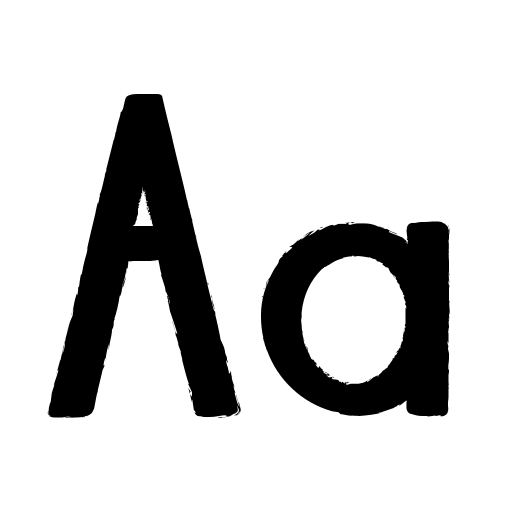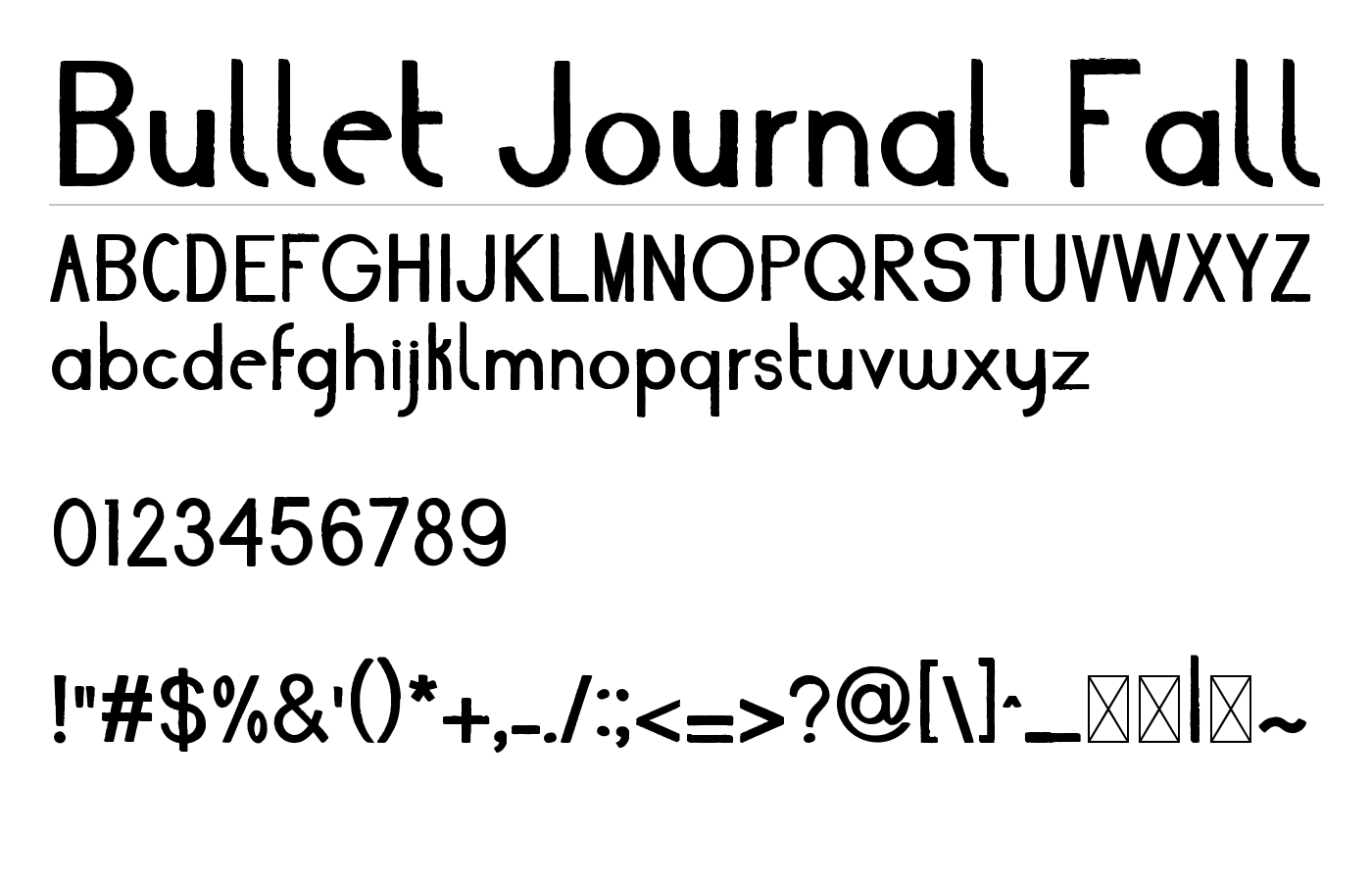
Bullet Journal Font is a playful and casual sans serif with a hand-drawn feel, featuring slightly irregular, rounded letterforms that evoke a friendly and approachable mood. Its light to medium weight and tall x-height make it highly legible, perfect for creative projects like journaling, invitations, or whimsical branding that benefit from a personal, informal touch. This font works well in headlines and short texts where a warm, handmade aesthetic is desired.
Bullet Journal Font
About Bullet Journal Font